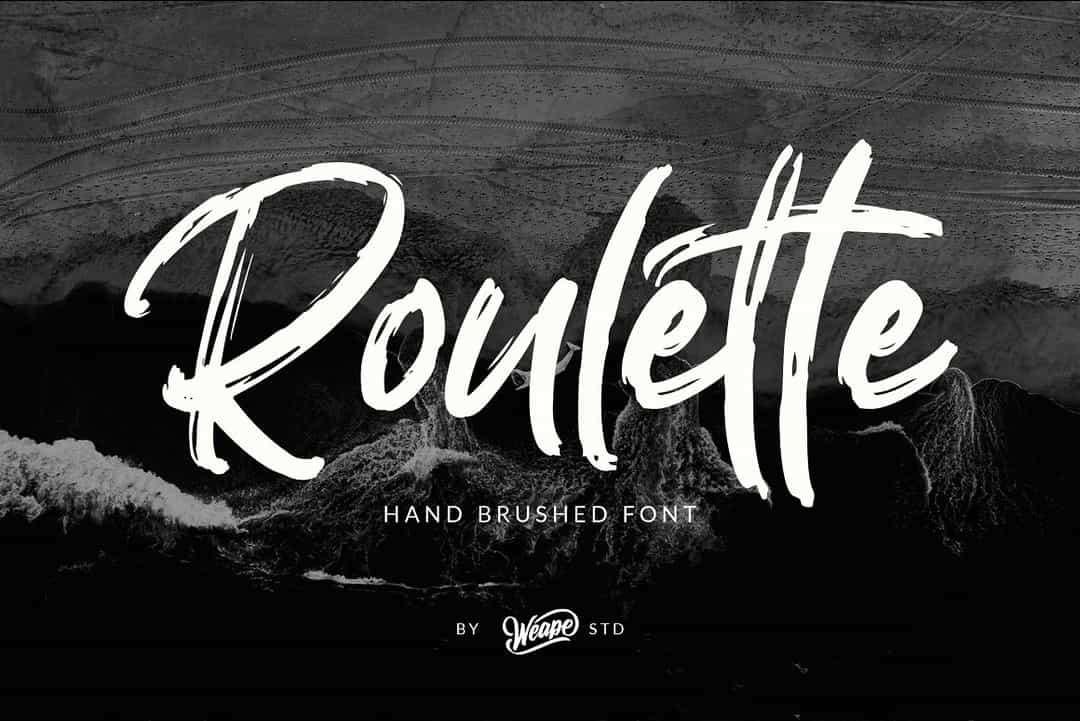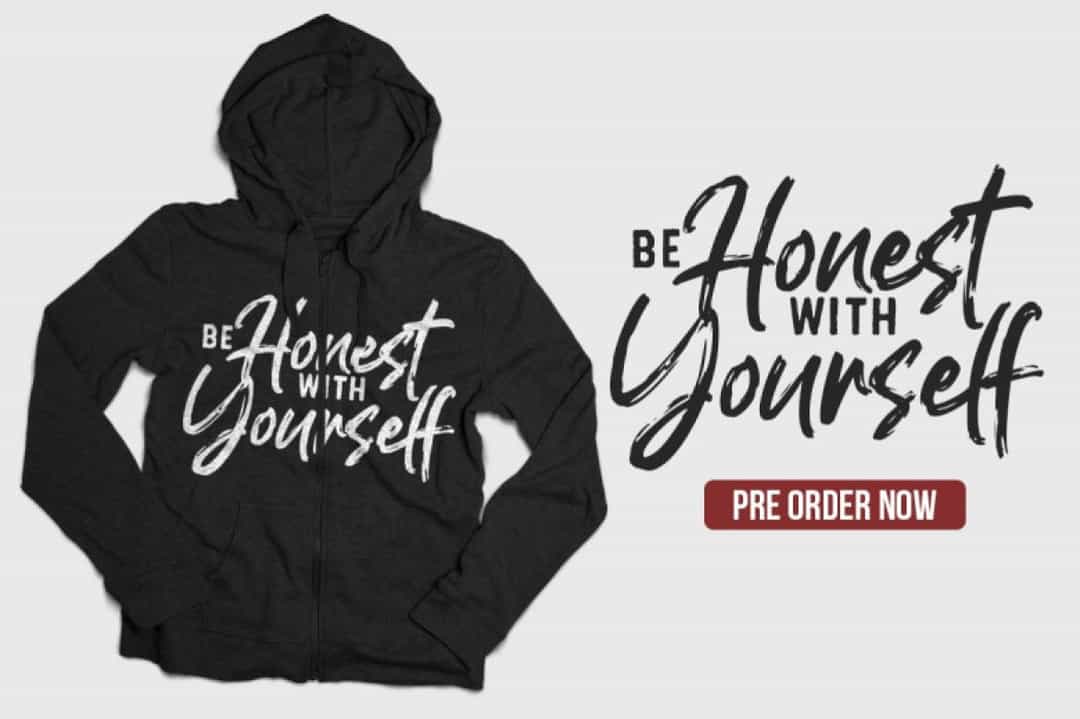
Introduce the Roulette Hand-Brushed Font that features natural dry brush strokes and rapid hand stroke speed, perfect for advertising or use to promote any business or any purpose imaginable; such as handwritten, signature quotations, weddings packaging for products clothing photography merchandise branding projects posters book covers social media greeting cards book covers or advertising campaigns.